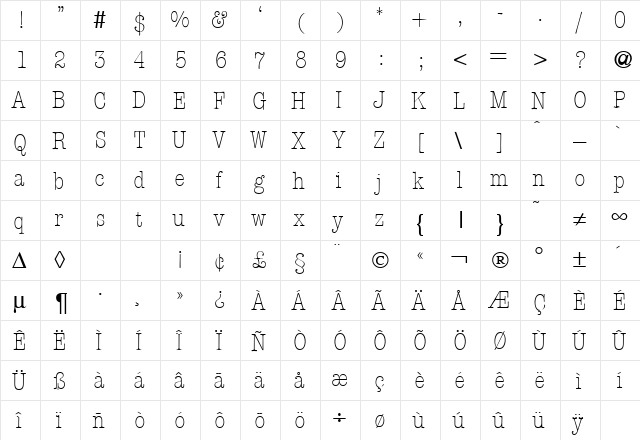
Design Context for ModernTypewriterCondLight Typeface
ModernTypewriterCondLight brings the precise, column-aligned rhythm of monospaced typography to designs that value technical clarity and systematic order. The delicate stroke weight brings airiness and refinement to layouts.
Pro Tip: Use ModernTypewriterCondLight with slightly increased line-height for extended reading — fixed-width spacing can feel dense in longer passages without extra breathing room.